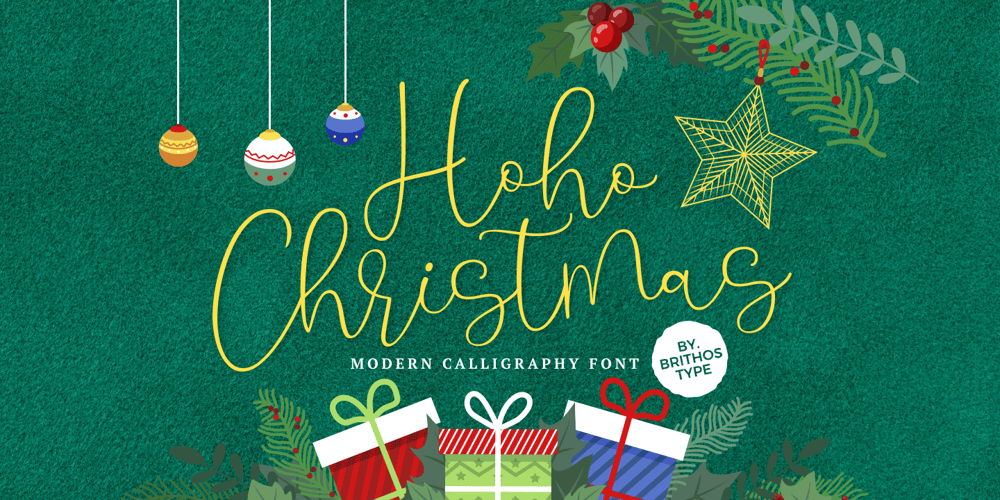
Hoho Christmas Font Family was designed by Ali Hamidi and published by Brithos Type. Hoho Christmas contains 1 styles and family package options. Hoho Christmas is an elegant and flowing handwritten font. Not too thin and not too thick, balanced and varied. Hoho Christmas is perfect for each of your winter designs. Add it confidently to your projects, and you won’t be disappointed.